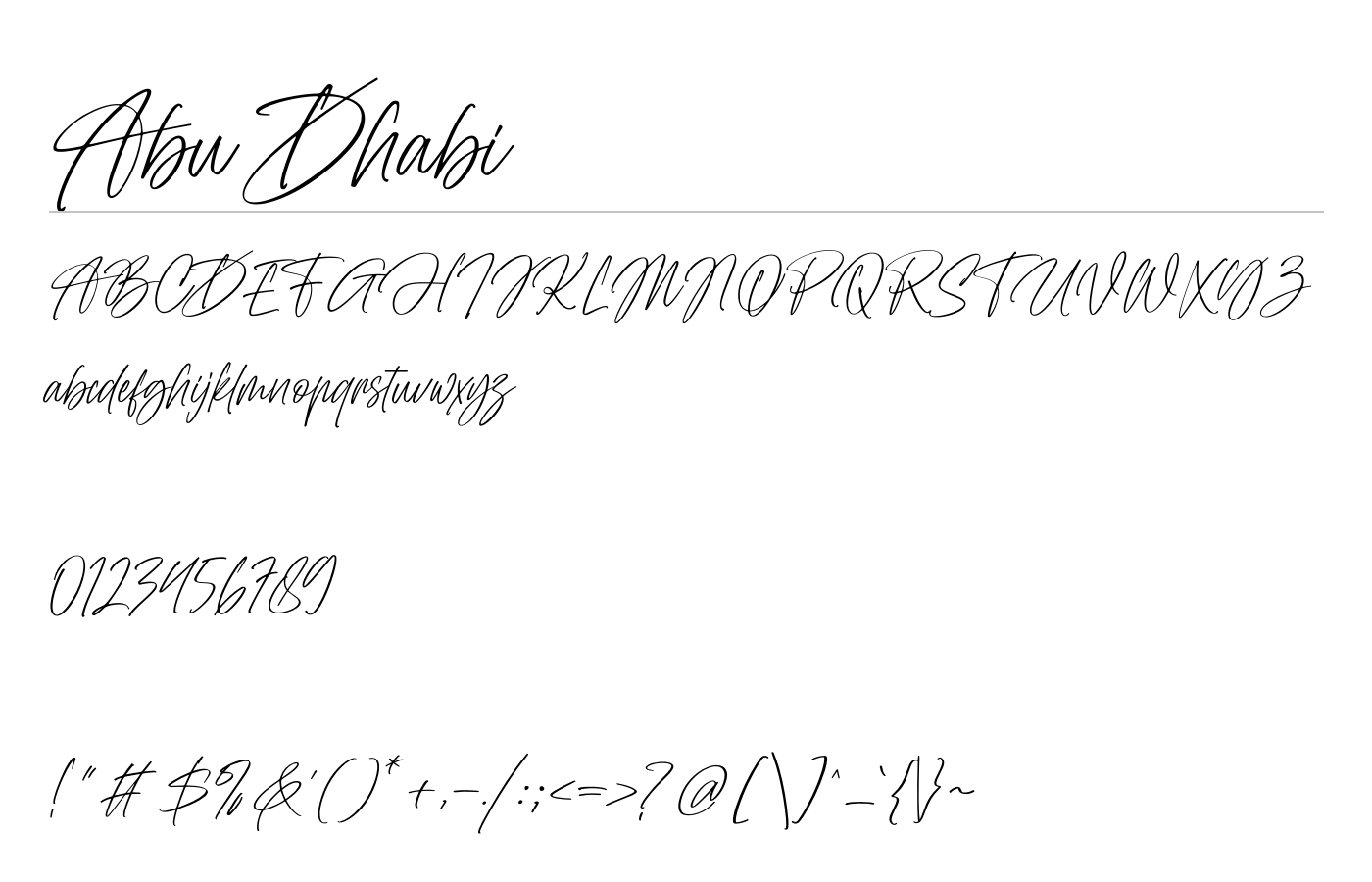
Abu Dhabi is a delicate, elegant script font with a handwritten feel, featuring thin, flowing strokes and a natural, slightly irregular rhythm. Its graceful letterforms and casual yet refined style make it ideal for invitations, branding, and creative projects seeking a personal, sophisticated touch. This font works well in headlines or logos where a graceful and artistic impression is desired.
Abu Dhabi Font
About Abu Dhabi Font
| Font family | Abu Dhabi Font |
| Designer | Rangga Singgih Subekti |